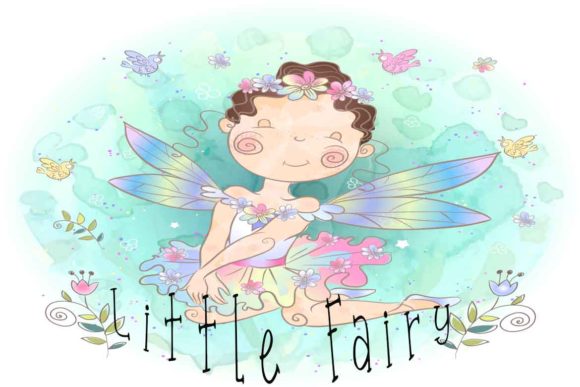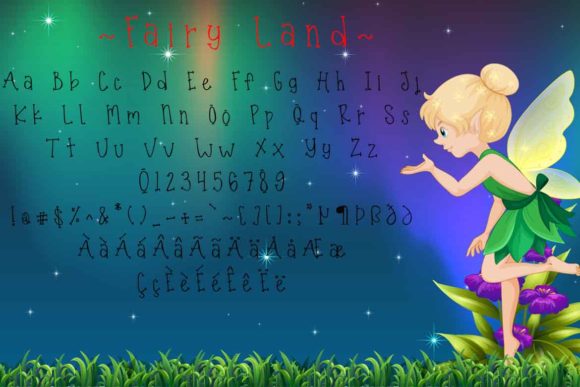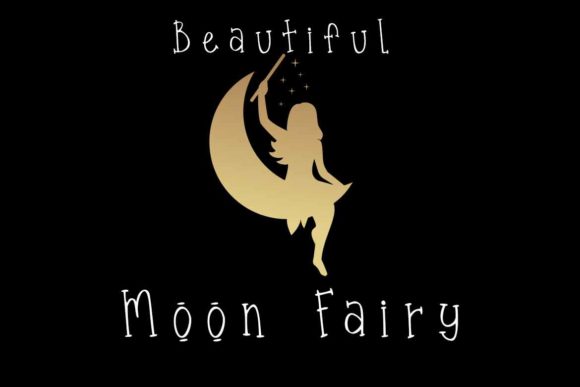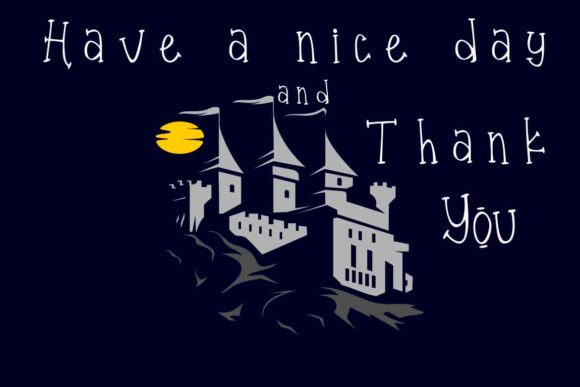
Introduction to Fairy Land Font Font
Fonts play a crucial role in design, and the Fairy Land Font font is a typeface that brings both character and versatility to any project. Whether you’re working on a branding project, a website, or a print design, the Fairy Land Font font offers a unique style that can elevate your work.
| 📌 Font Name | Fairy Land Font |
| 👤 Author | Supersemar Letter |
Fairy Land is a cute and simple handwritten font.
Key Features of Fairy Land Font Font
Why Choose Fairy Land Font Font?
The Fairy Land Font font is more than just a typeface – it’s a design tool that helps you communicate your message with style and clarity. Its unique character set and versatile design make it suitable for a wide range of applications, from elegant invitations to bold headlines.
With its carefully crafted letterforms and balanced proportions, the Fairy Land Font font ensures readability and visual appeal across all mediums.
What makes Fairy Land Font font special?
The Fairy Land Font font stands out with its unique design, exceptional readability, and versatility across various design applications.